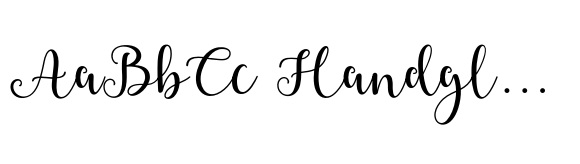
Listingloves
par Sulthan Studio
La famille de polices Listingloves a été conçue par Nasrullah et publiée par Sulthan Studio. Listingloves contient 1 styles.
Listingloves - new, fresh, funny, interesting, cute calligraphy font with two cute hearts that can be connected. It is suitable for greeting cards, branding materials, business cards, quotes, posters and more!
Concepteurs: Nasrullah
Éditeur: Sulthan Studio
Fonderie: Sulthan Studio
Maître d'ouvrage: Sulthan Studio